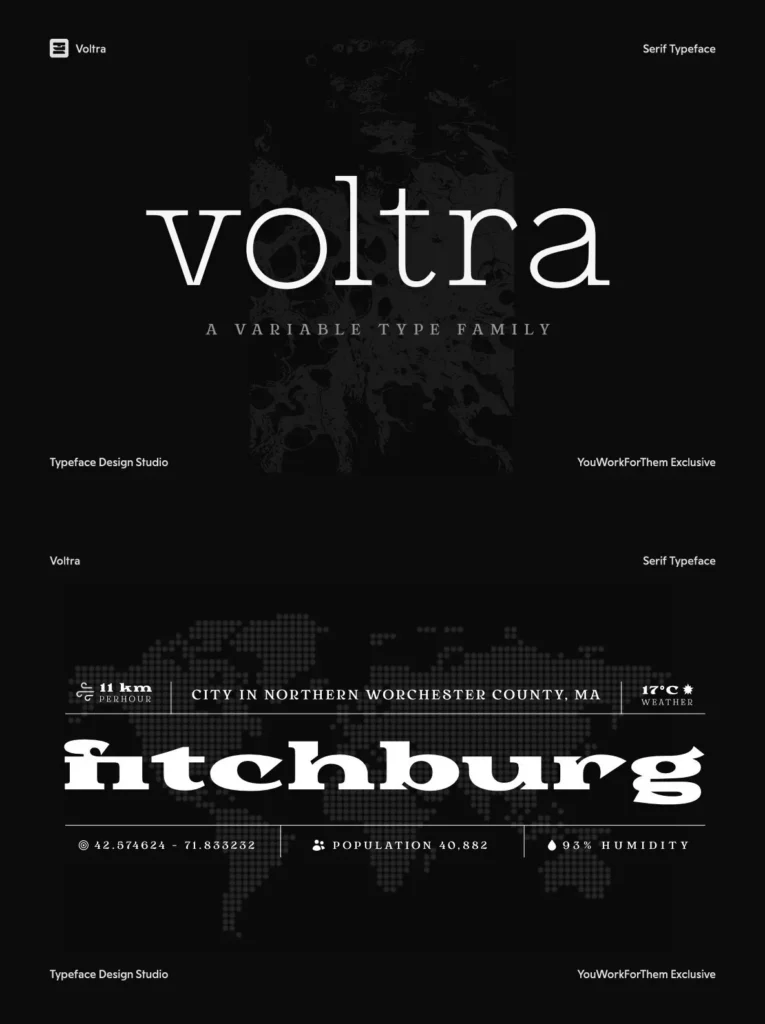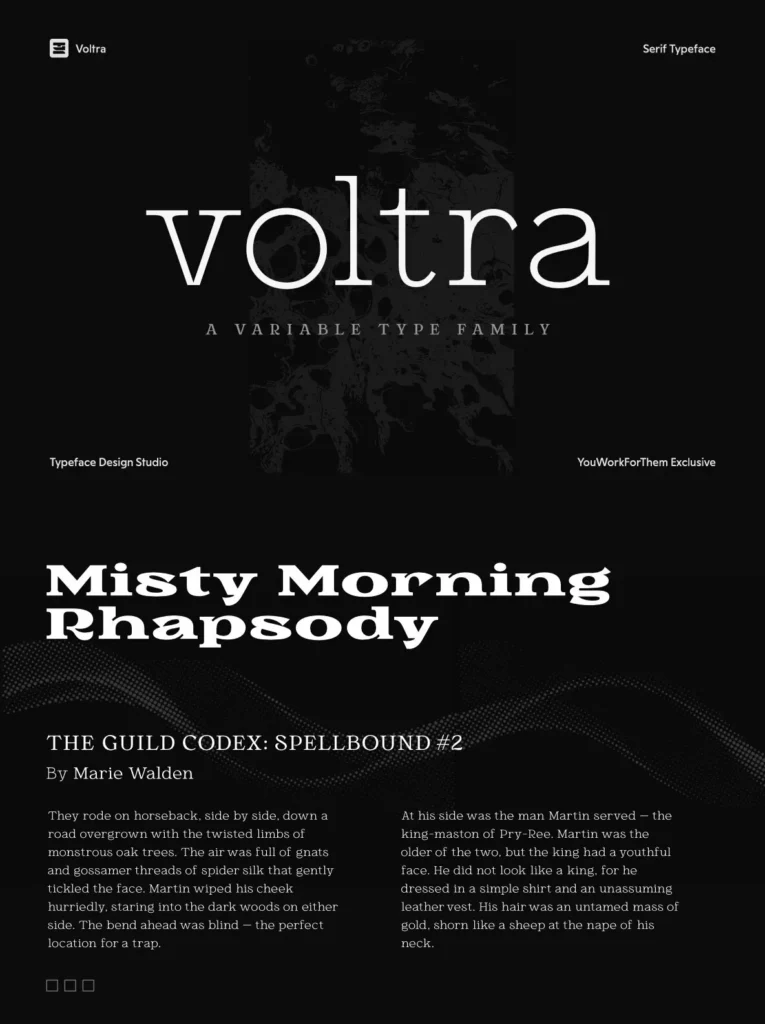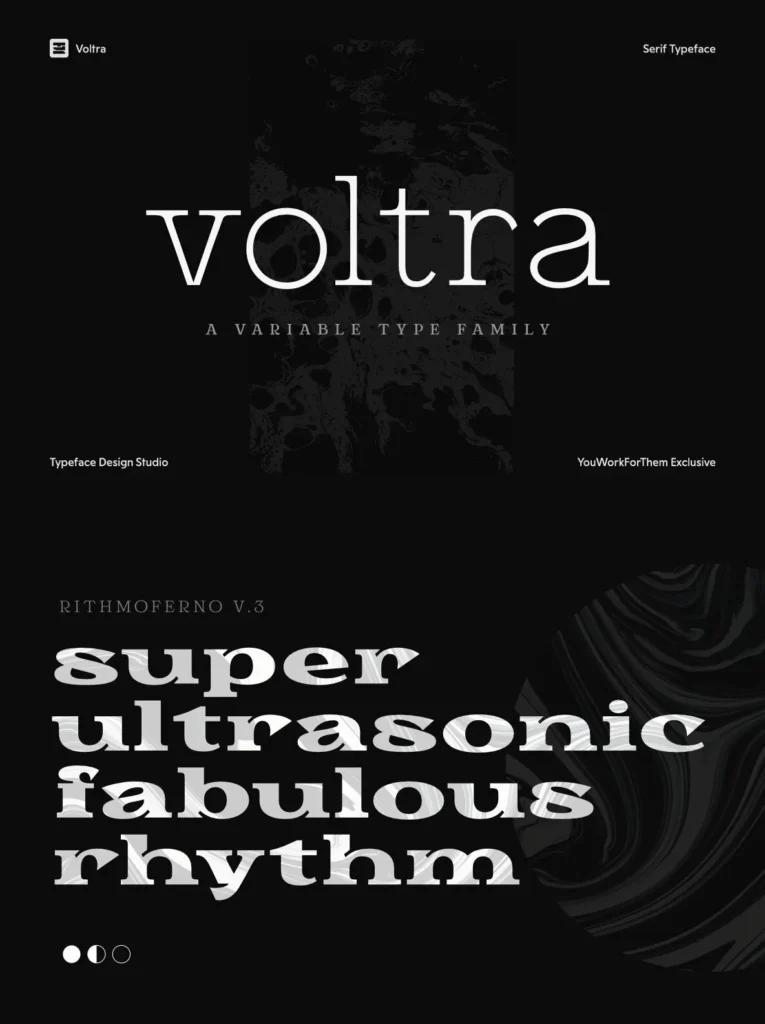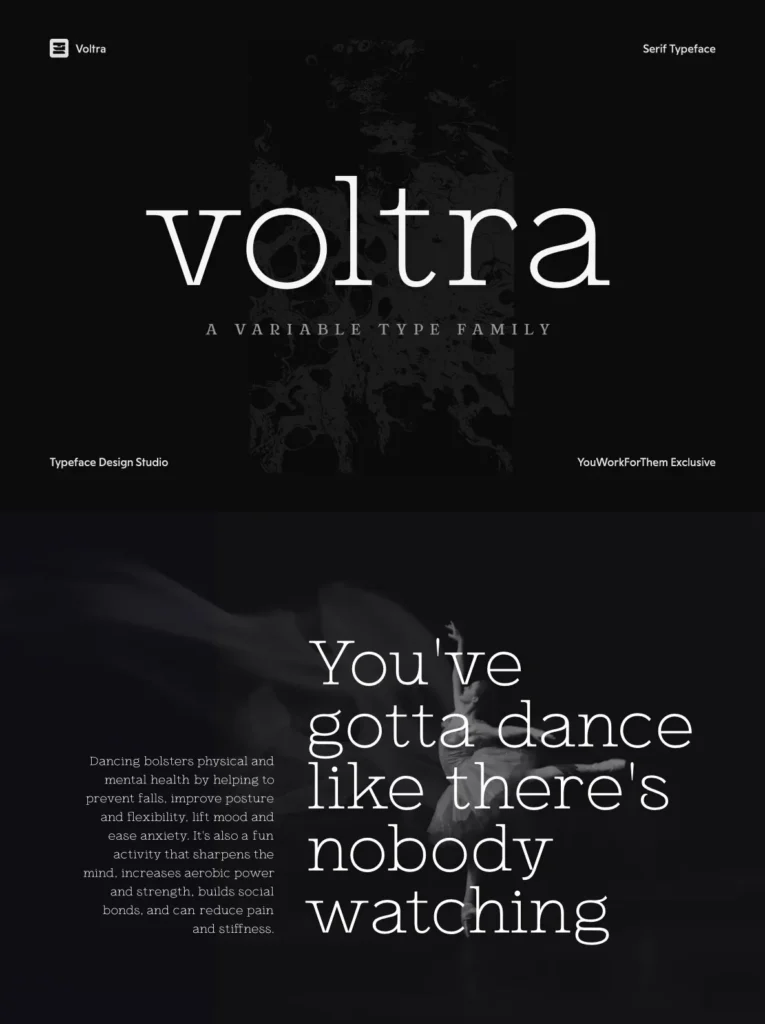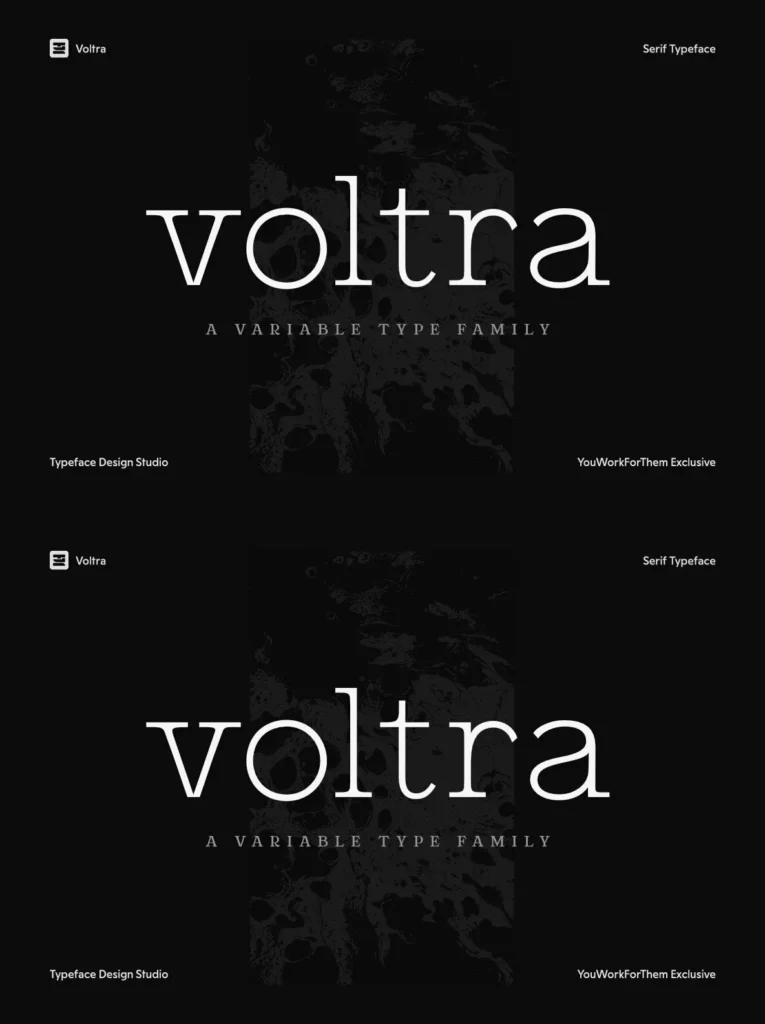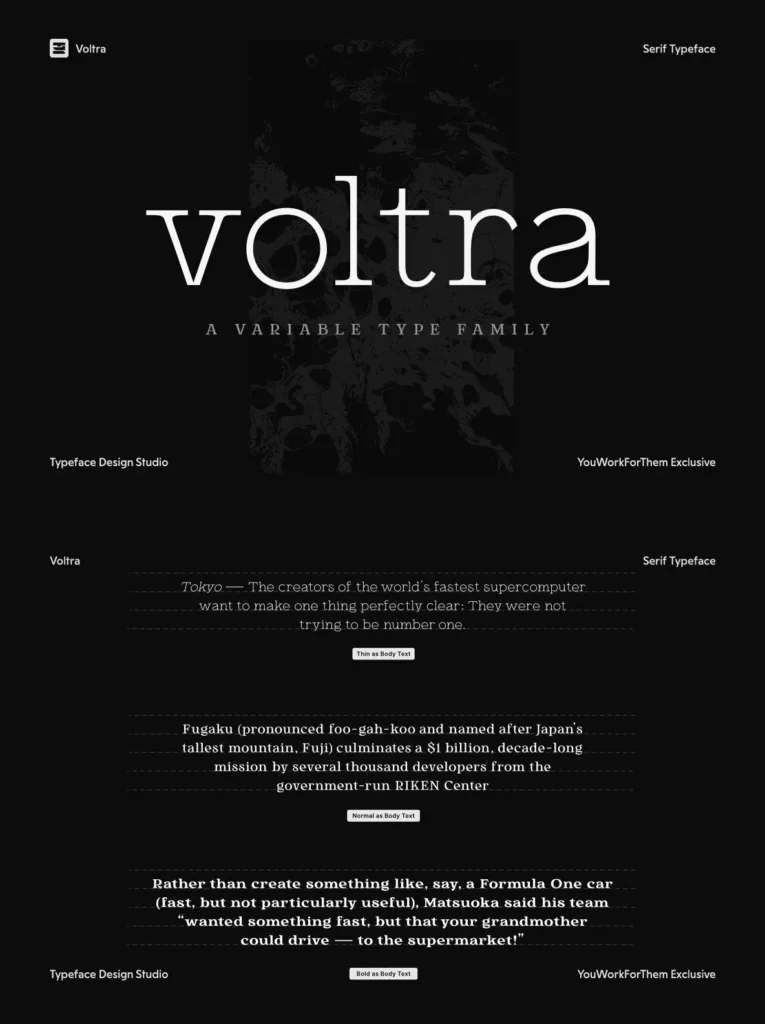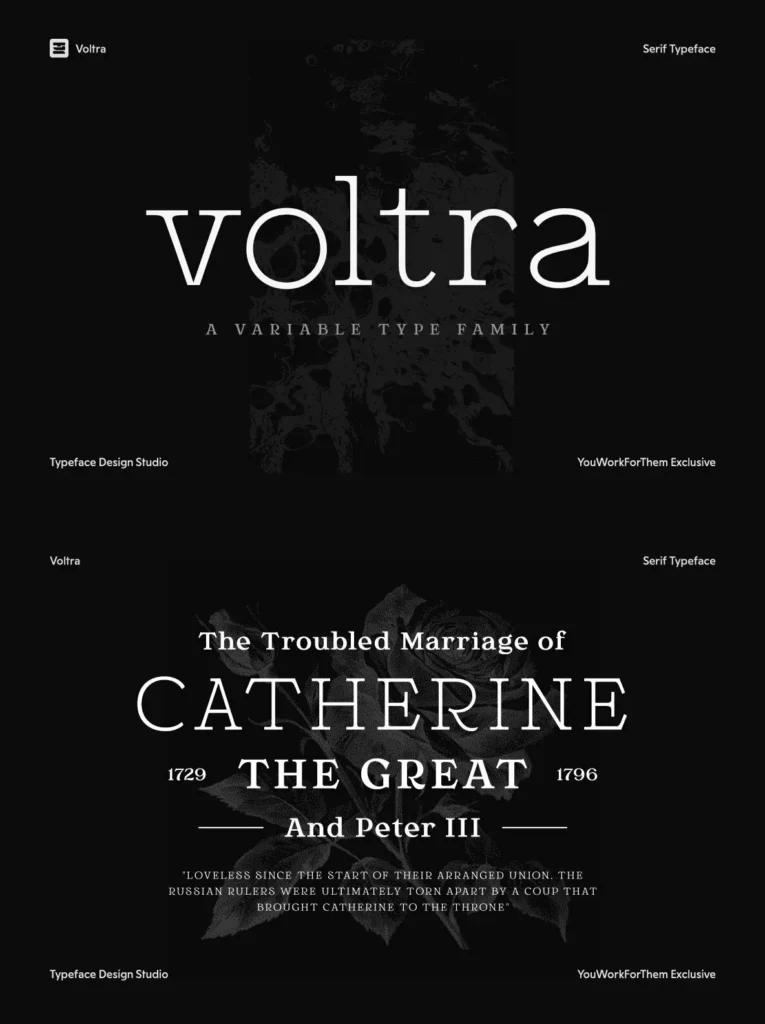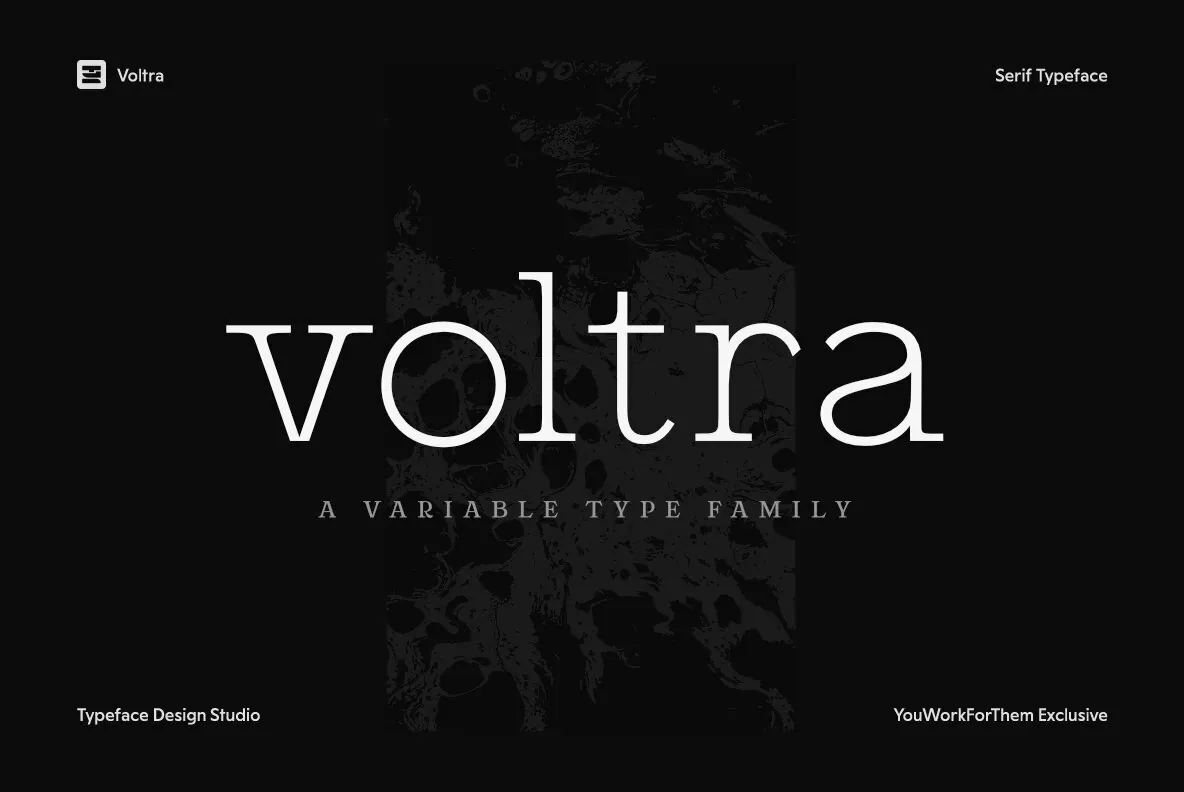
Voltra: A Versatile Serif with a Modern Edge
Voltra stands as an intriguing blend of modern flair and vintage elegance. This YouWorkForThem exclusive serif offers a dynamic range from the thinnest slab to a robust expanded display serif, inviting designers on a visual exploration across its forms. It’s engineered to perform seamlessly across mobile and web platforms, making it a versatile option for both digital and print projects.
The complete family of Voltra encompasses 19 fonts, featuring both regular and expanded styles, alongside a variable option. Each style boasts over 400 glyphs, providing extensive stylistic choices.
OpenType Features
Stylistic Alternates
– Customize your typeface aesthetics.
Denominator
– Supports advanced mathematical settings.
Discretionary Ligatures
– Adds character and uniqueness.
Fractions
– Ideal for numerical compositions.
Glyph Composition/Decomposition
– Expands typographic creativity.
Numerator
– Perfect for technical applications.
Standard Ligatures
– Improve reading flow and aesthetics.
Stylistic Sets
– Enhance your design’s personality.